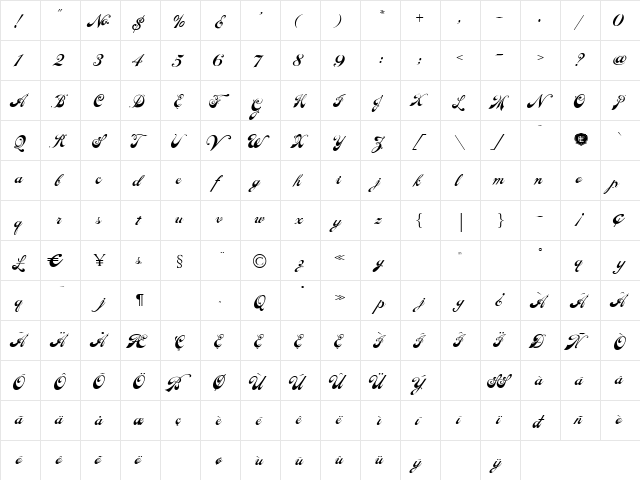
Ephemera LHF Alternates Regular
Design Context for Ephemera LHF Alternates Typeface
Ephemera LHF Alternates is a composed and adaptable typeface that performs quietly and consistently across a wide range of design contexts.